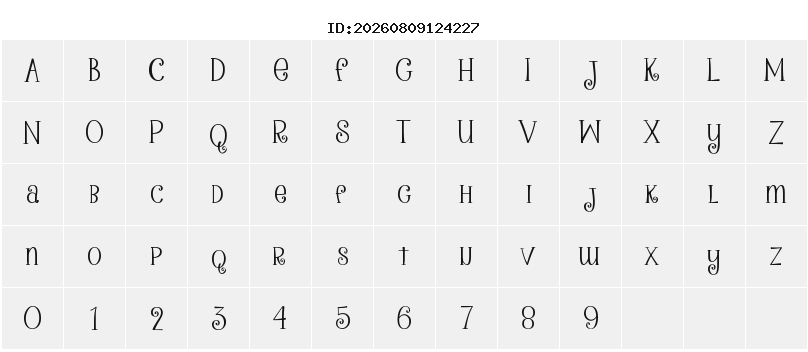
Peanutbutter Smoothies Preview
• Font Name: Peanutbutter Smoothies
About Peanutbutter Smoothies.ttf
Peanutbutter Smoothies.ttf is a modern, elegant sans-serif font designed for ultimate readability and visual harmony. Perfect for branding, headlines, web design, and print materials.